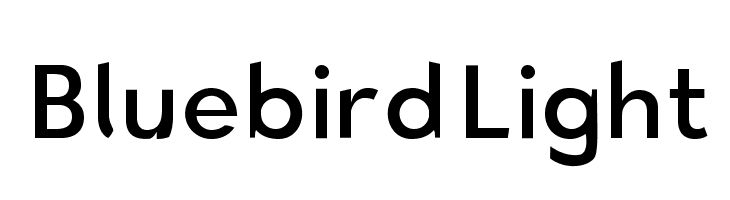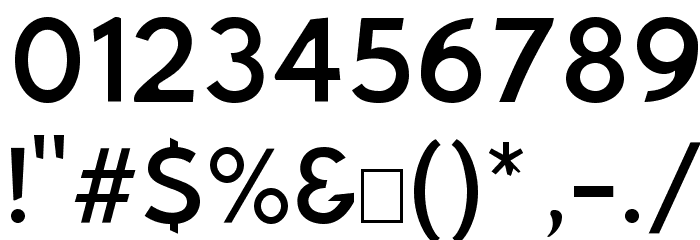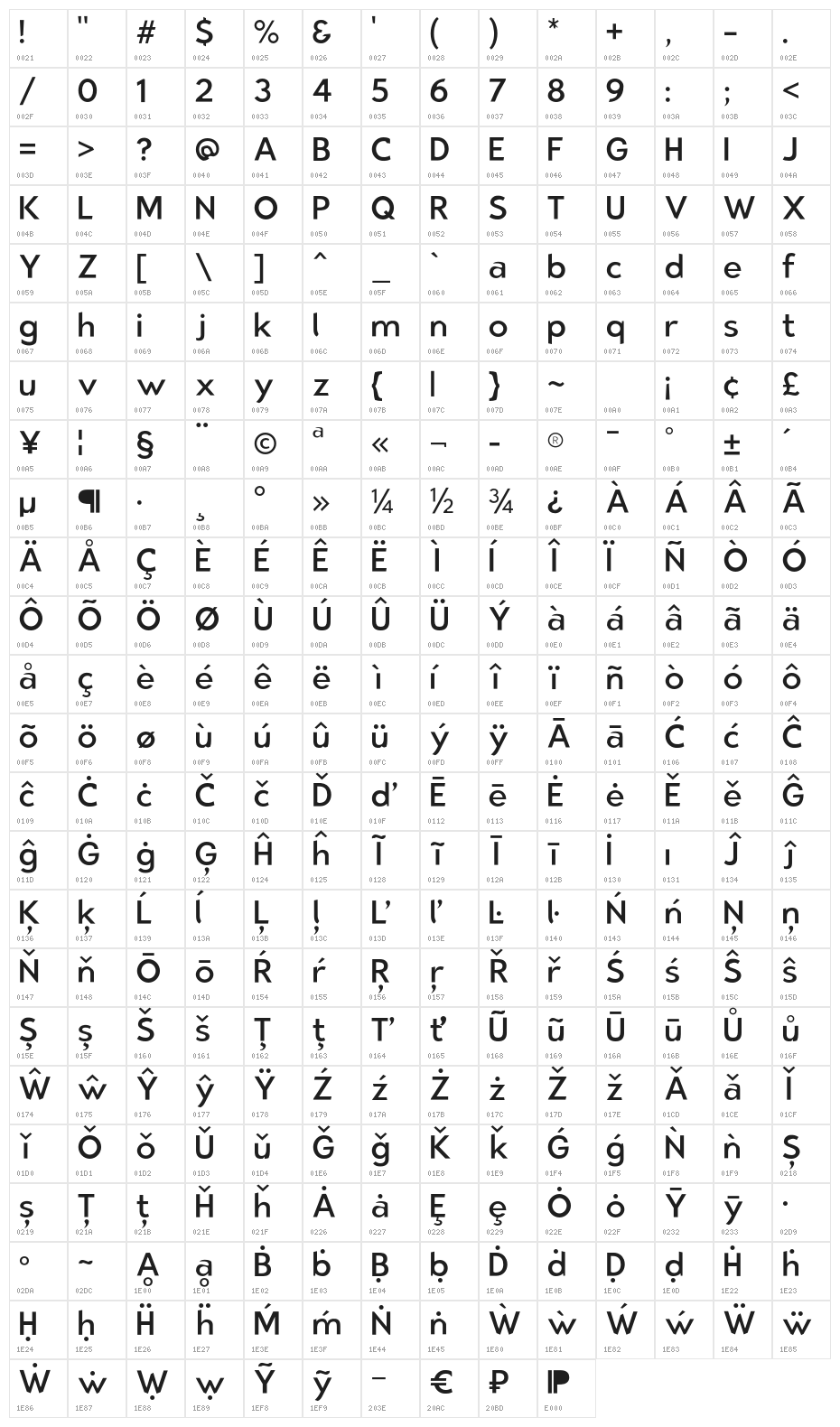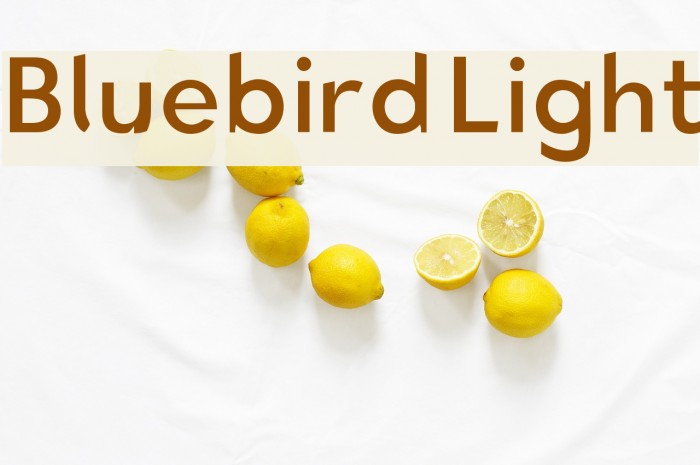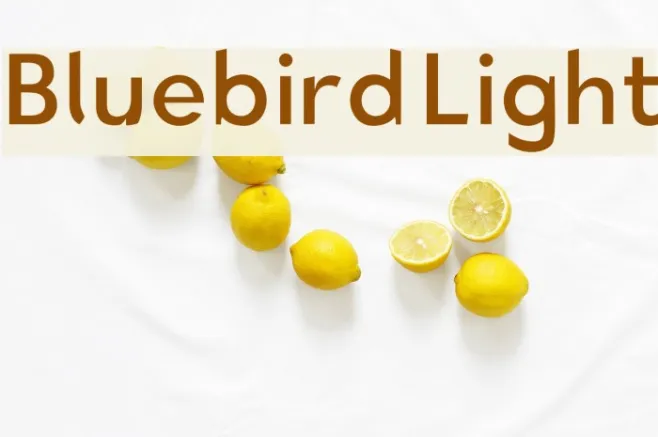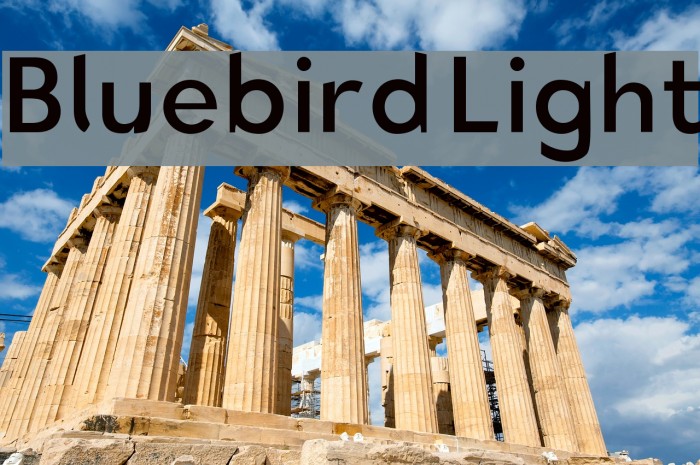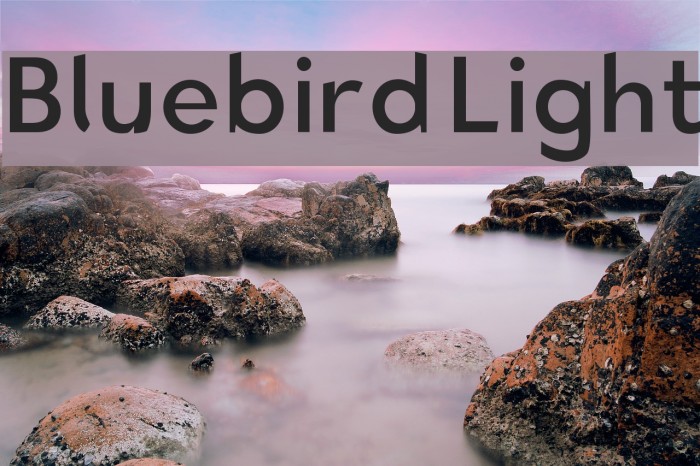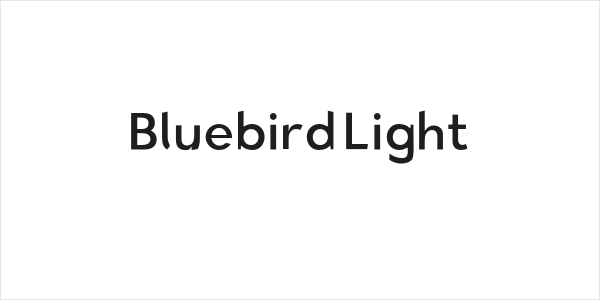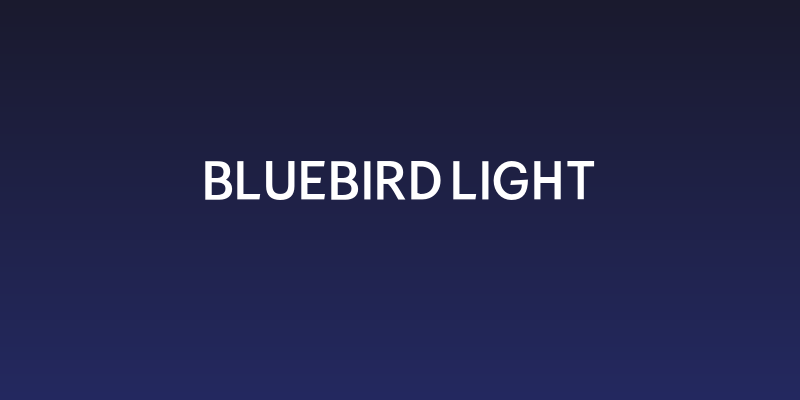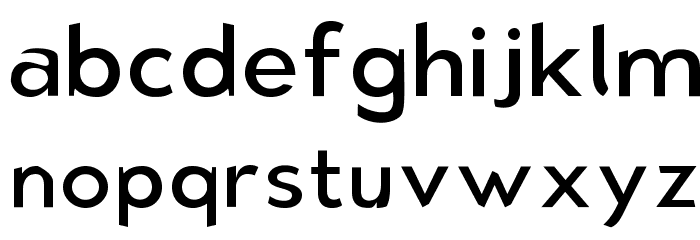
Bluebird Light Font
Bluebird Light Description
This font features a clean and modern sans-serif design with smooth curves and a balanced structure. The uppercase letters are bold and assertive, while the lowercase letters maintain a friendly and approachable appearance. The numerals are clear and easily legible, making them suitable for various applications. The special characters are well-integrated, ensuring consistency across different uses. Its simplicity and elegance make it versatile for both digital and print media.